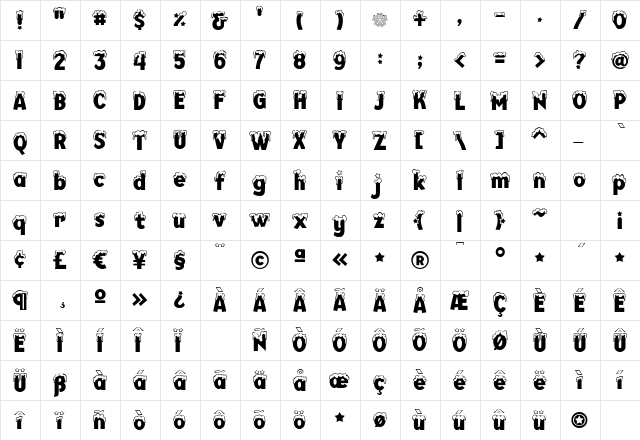
Mingler Snowy
Design Context for Mingler Typeface
Mingler is a composed and adaptable typeface that performs quietly and consistently across a wide range of design contexts.